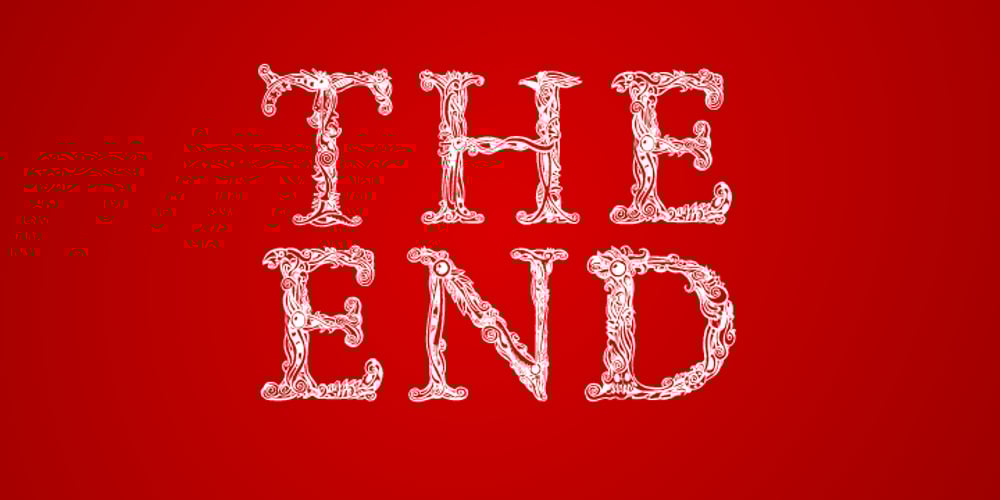
Rephran
Rephran font
Rephran Font Family was designed by published by Mirror Types. Rephran contains 1 styles and family package options. Rephran is a font completely designed by hand, with brush and black indian ink,all the lines were softly made by hand. Every letter is like a piece of art, including the numbers and signs. Check the PDF in the gallery section to see the details. It includes Capitals, lower case letters, Signs and Numbers.